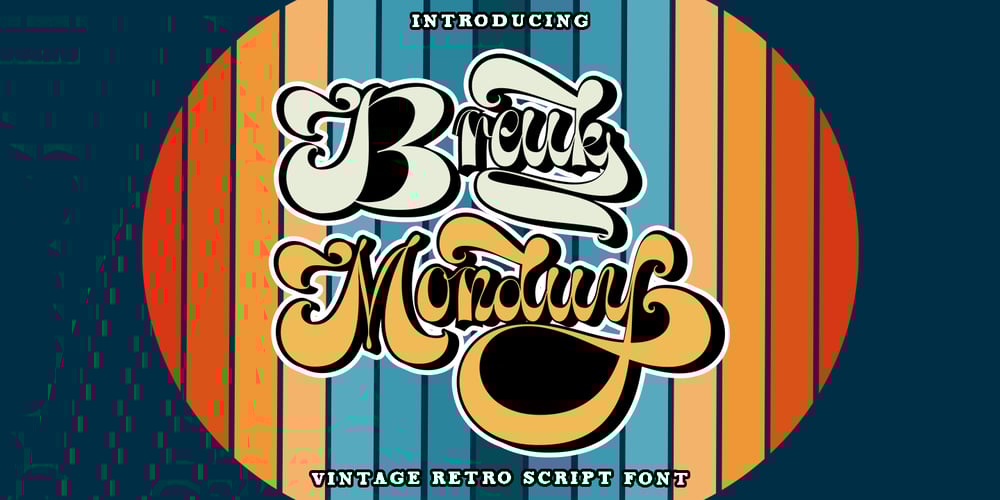
Breuk Monduy Font Family was designed by Teuku Bustami and published by TM Type. Breuk Monduy contains 2 styles and family package options. Breuk Monduy Inspired Retro Style and mixed with Hand Lettering style. Breuk Monduy has lots of alternative swashes & ligatures and has open type features like alternate styles, style sets, ligatures and swashes so you can mix and match however you like. Breuk Monduy comes with open type features such as style alternatives, style sets & binders suitable for all types of logos, posters, badges, book covers, t-shirt designs, handwritten quotes, product packaging, headers, posters, merchandise, social media & greeting cards .To enable the OpenType Stylistic alternative, you need a program that supports OpenType features such as Adobe Illustrator CS, Adobe Indesign & CorelDraw X6-X7, Microsoft Word 2010 or a later version. How to access all alternate characters using Windows Character Map with Photoshop:https://www.youtube.com/watch?v=Go9vacoYmBwHow to access all the alternate characters using Adobe Illustrator:https://www.youtube.com/watch?v=XzwjMkbB-wQHere’s how to find glyphs: For Ms. Word : select the letter you want to add the swash > click the insert menu > symbol > other symbols > then you select the mode you want.If your laptop has Phoyoshoop, the method is: block the letters you want to wash > several swash options will appear, then click the one you want to use.for more details you can see a lot of tutorials on youtube, about how to use it.Breuk Monduy is encoded with Unicode PUA, which allows full access to all additional characters without having to have special designing software. Mac users can use Font Book, and Windows users can use Character Map to view and copy any extra characters to paste into your favorite text editor/app.Thanks so much for looking and let me know if you have any questions!